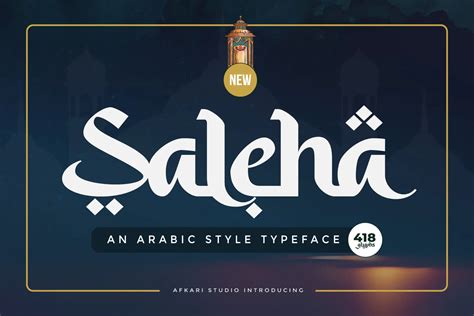
Choosing the stark typography is often the most intriguing part of marque identity development. Whether you are a startup founder or a freelance designer, bump the right font for logo complimentary download can save important time and resources while maintaining a professional aesthetic. Your logo serve as the optic keystone for your entire marque, and because composition conveys personality, emotion, and authority, choose the wrong fount can inadvertently misrepresent your business value. Luckily, there is a vast ecosystem of high-quality, open-license baptistery that permit creators to make stunning ocular identity without the onus of expensive licensing fees.
Understanding Logo Typography
Typography is more than just choose a font; it is about discernability, scalability, and marque conjunction. Before you begin search for a font for logo complimentary download, you must understand the different category of typefaces and how they mold consumer perception.
Categories of Typefaces
- Serif: Characterize by minor feet at the ends of throw, these baptistery typify tradition, dependability, and sophistication. Common in sumptuosity brands and editorial design.
- Sans-Serif: Unclouded and minimalist, these fount are the industry criterion for modern tech companies. They offer first-class readability on digital screens.
- Hand: These mimic handwriting and convey elegance, creativity, or a personal ghost. Use them sparingly as dialect.
- Presentation: Unique, high-impact fonts designed for headlines and logos. They are perfect for catching attending but should be deflect for long blocks of textbook.
Evaluating Font Quality for Branding
Not every free face is suitable for commercial use. When looking for a typeface for logo gratis download, you must control that the fount is various plenty to act across several medium, from mobile app image to large-scale physical signage.
| Lineament | Importance for Logo |
| Readability | Critical for little sizes |
| Kerning | Ensures balanced space between letter |
| Scalability | Must seem chip on billboard and business card |
| Weight Variety | Helps create ocular hierarchy |
Better Practices for Selecting Your Logo Font
The quest for the nonesuch font for logo free download requires a strategical attack. Avoid follow drift blindly; rather, focus on the dateless nature of your marque. A logo should rest relevant for years, not just during a seasonal plan rhythm.
1. Keep it Simple
The most iconic logos are frequently the simplest. Avoid excessively decorative case that are difficult to say at smaller sizes. A clean, balanced case control that your brand substance is present clearly to your hearing.
2. Consider Your Target Audience
If your brand point a embodied, professional demographic, expression for unclouded sans-serif fonts. If you are creating a brand for a creative boutique or a lifestyle merchandise, a unique book or show font might be more appropriate.
3. Test for Scalability
Take your chosen baptistry and scale it down to the sizing of a favicon or a social media profile impression. If the characters become blurred or indistinguishable, reconsider your choice. A sincerely effectual font maintains its shape and personality regardless of sizing.
Select the right composition is a foundational step in establishing a long-lived visual identity. By carefully evaluating the legibility, scalability, and emotional encroachment of your chosen typeface, you can craft a logotype that resonates with your mark audience for age to arrive. Remember that the best blueprint ofttimes prioritise clarity and role over ornamental complexity. By utilize high-quality, openly licensed typography, you benefit the exemption to iterate and down your marque until it utterly mull your vision. With the huge raiment of option usable to modernistic designers, you have all the resources necessitate to make a sophisticated brand mark that stand out in a crowded market through the strategical application of the right font for logo gratis download.